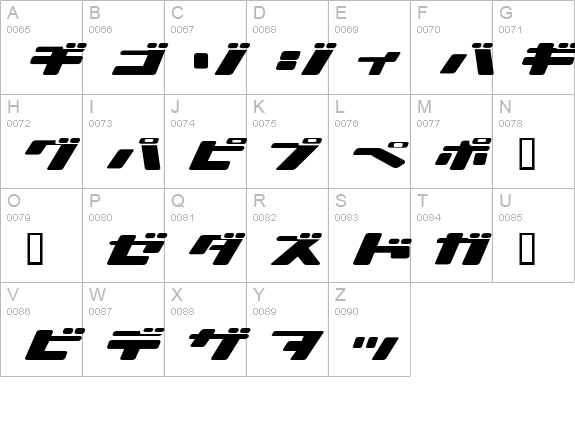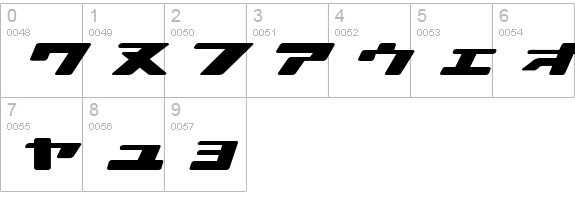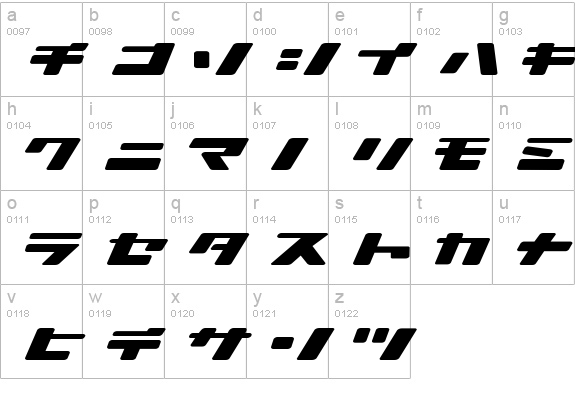
Ionic bond Font Details
Ionic Bond is a captivating and modern font that effortlessly combines elegance and strength, making it the perfect choice for any project that requires a touch of sophistication. With its sleek and stylish design, this font exudes confidence and professionalism, making it ideal for branding, logo design, packaging, and more. The unique feature of Ionic Bond is its ability to effortlessly bridge the gap between classic and contemporary design. This font seamlessly blends traditional letterforms with a modern twist, resulting in a truly eye-catching and versatile typeface. Its clean lines and balanced proportions create a sense of harmony, while its subtle curves add a touch of elegance. What sets Ionic Bond apart is its versatility and adaptability. Whether used in large headlines or small body text, this font maintains its legibility and readability, ensuring that your message is conveyed with clarity. Its wide range of weights and styles gives you the flexibility to create bold and impactful designs or subtle and refined compositions. But what truly makes Ionic Bond stand out is that it is freely available to download at FontsMarket.com. This means that you can enjoy the beauty and functionality of this font without any cost. Whether you are a professional designer or a hobbyist, Ionic Bond allows you to bring your creative visions to life without any limitations. So, if you are looking for a font that combines elegance, strength, and versatility, look no further than Ionic Bond. Download it for free at FontsMarket.com and unlock a world of endless possibilities for your design projects.